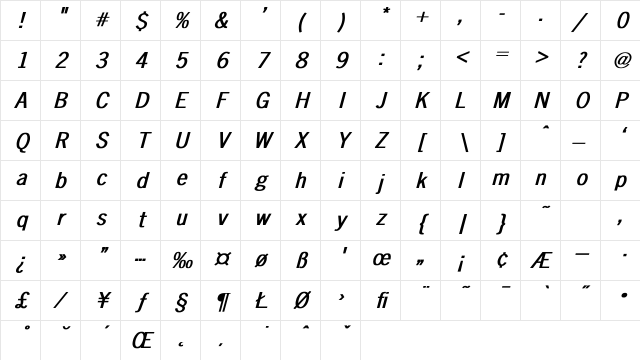
Complete Ice'n-Gothic Bold Italic Regular glyph index. Displaying only characters natively supported by Ice'n-Gothic Bold Italic Regular font.
Ice'n-Gothic Bold Italic takes a clean, functional approach - its unadorned letterforms prioritise legibility and work reliably across screen and print environments. The slanted form adds forward momentum and visual energy. Its bold stroke weight gives it real presence on the page.
Font Pairing: Use Ice'n-Gothic Bold Italic for headlines alongside a lighter-weight sans or serif for body copy to establish clear visual hierarchy.
Pro Tip: Use Ice'n-Gothic Bold Italic for UI labels, navigation, and short-form body copy where clean legibility is the priority.